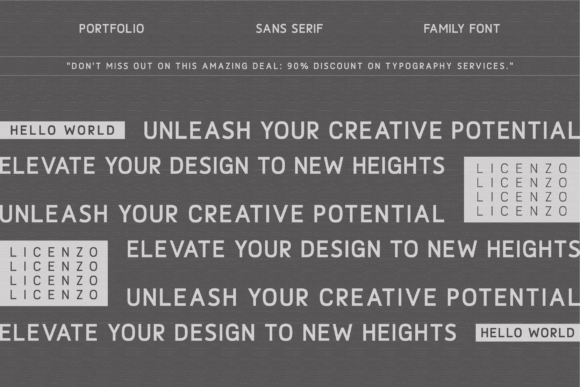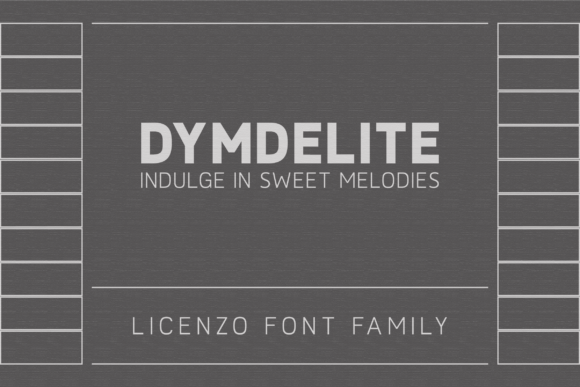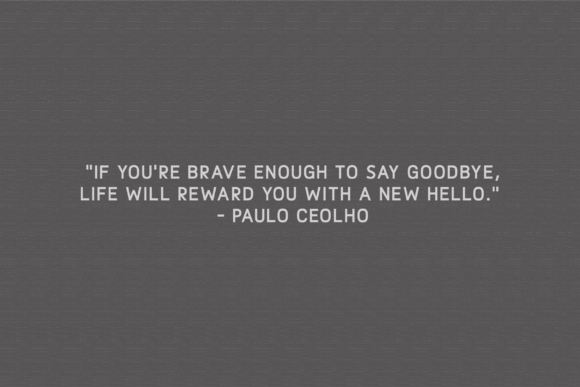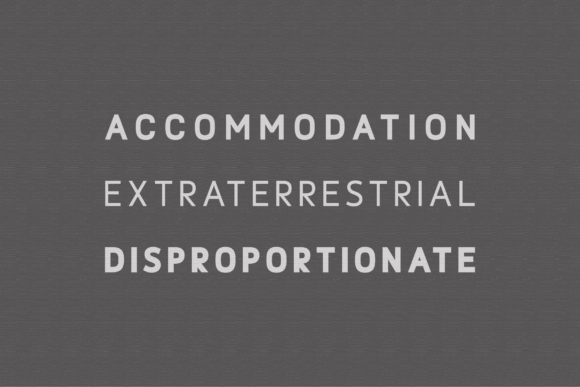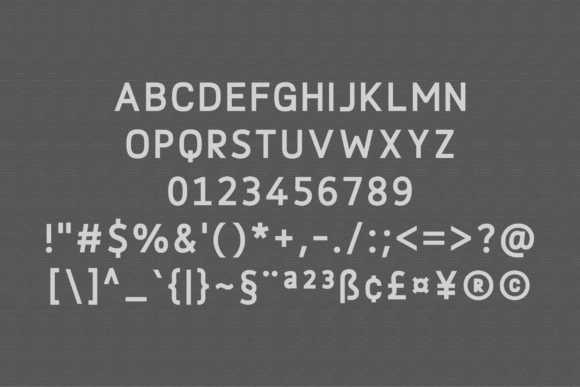
Introduction to Licenzo Font
Have you ever found yourself staring at a blank canvas, eager to bring a creative project to life, yet struggling to find the perfect design resource? As a designer, you know that the right font can make all the difference. This is where the Licenzo Font comes in – a game-changing sans serif collection that effortlessly combines modernity and luxury.
Crafted with utmost precision, this high-quality font family is designed to enhance any project, from magazine layouts to film posters. With 5 distinct weights, you’ll find the perfect balance of sophistication and simplicity to make your designs exude timeless charm. Whether you’re working on a free download or a paid project, the Licenzo Font is the perfect tool to elevate your creative vision.
Key Features of Licenzo Font
- Includes a range of glyphs and characters, making it a versatile design resource for various creative applications.
- Perfect for use in logos, branding, typography, and other design elements, thanks to its clean and sophisticated design.
Honest Review: Licenzo Font
I recently had the chance to work with the Licenso Font, and I’m excited to share my honest review with fellow designers. As a designer, I’m always on the lookout for high-quality design resources to elevate my creative projects. The Licenzo Font did not disappoint.
- Unique and modern design: The Licenzo Font has a clean and sleek aesthetic that’s perfect for modern creative projects.
- Limited character set: The Licenzo Font may not have the same range of characters as more comprehensive font packs.
Overall, I’m impressed with the Licenzo Font’s high-quality design and ease of use. While it may have some limitations, it’s an excellent resource for designers working on creative projects that require a modern and unique look.
Tips for Getting the Most Out of Licenzo Font
The Licenzo Font is a versatile design resource that can be used in a variety of creative projects, including logos, brochures, and social media graphics. Its high-quality design and transparent background make it an ideal choice for designers and non-designers alike.
Alternatives to Licenzo Font
Open Sans is a high-quality, versatile font suitable for various creative projects, including websites, mobile apps, and print materials. It features a clean and modern design with a transparent background, making it ideal for digital designs. Open Sans is available for free download and is often used as a default font in many websites and applications. Compared to Licenzo Font, Open Sans has a more modern and sleek appearance, making it a great choice for contemporary designs.
Montserrat is a high-quality, urban font designed for digital platforms. It features a clean and modern design with a transparent background, making it perfect for web and mobile applications. Montserrat is free to download and is widely used in various creative projects, including websites, logos, and advertising materials. Compared to Licenzo Font, Montserrat has a more geometric and industrial appearance, making it a great choice for modern and edgy designs.